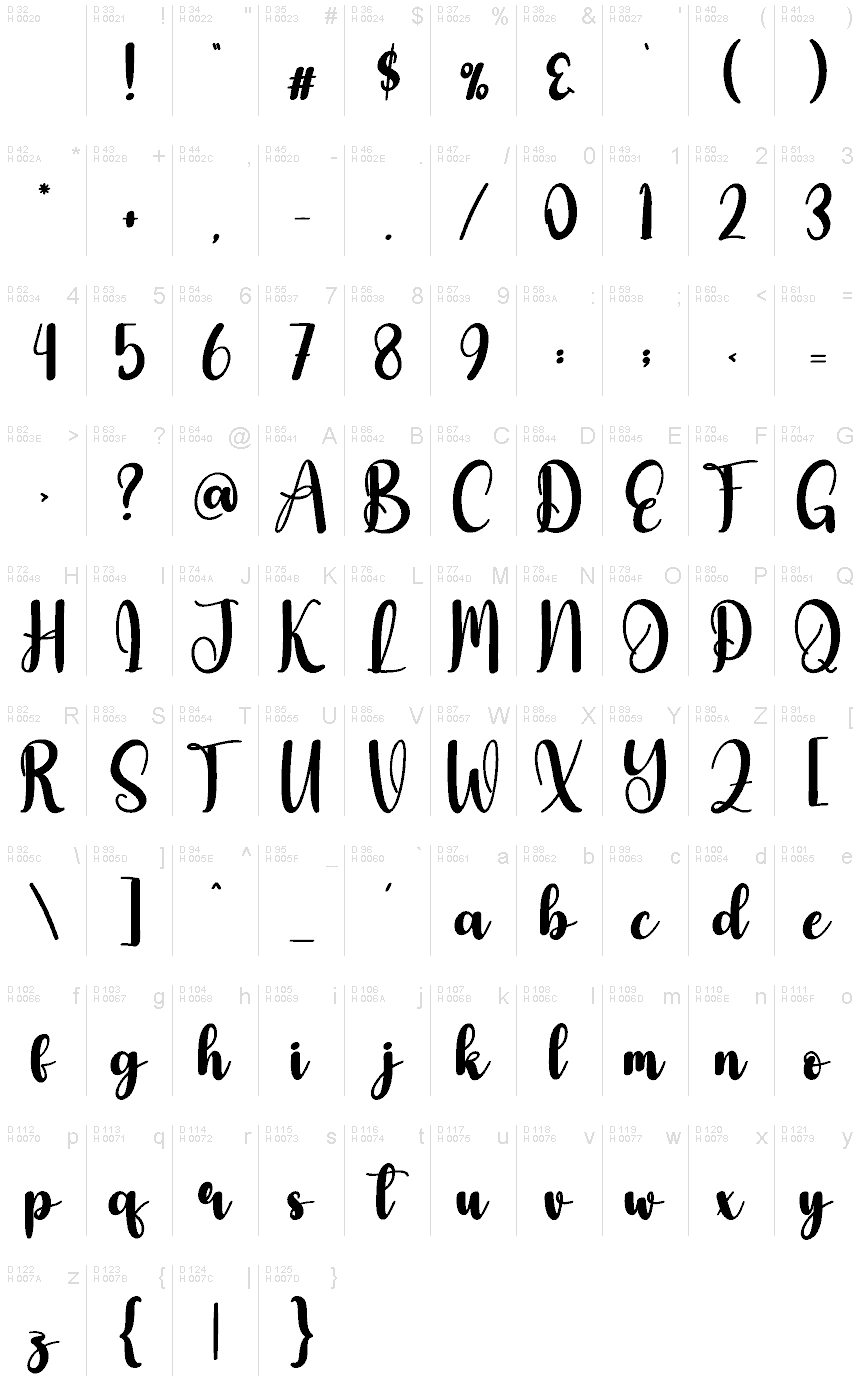
Witch Book
Witch Book font by Andi Moz is a whimsical free handwritten font that combines elegance, expressiveness, and playfulness all in one. It’s filled with smooth handcrafted curves resulting in an absolutely stunning typeface that speaks for itself without any added graphic resources or decoration. Letters have a unique touch which makes it impossible to get similar results with other fonts.
This beautiful display font can be used for poem writing or illustration, posters, menus, invitation cards, book covers (and of course book content), packaging design, business cards, tote bags (or t-shirts), mugs and stationery printout design as well.